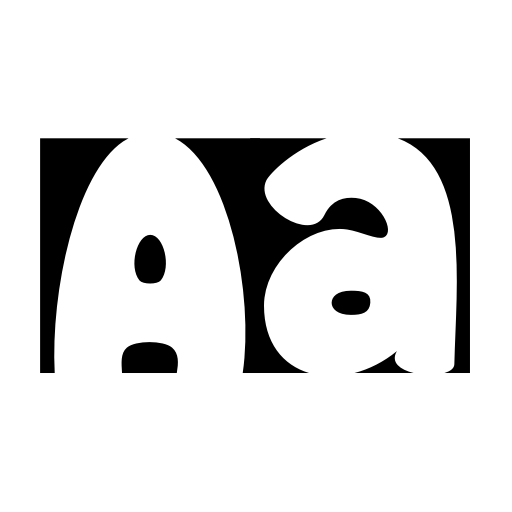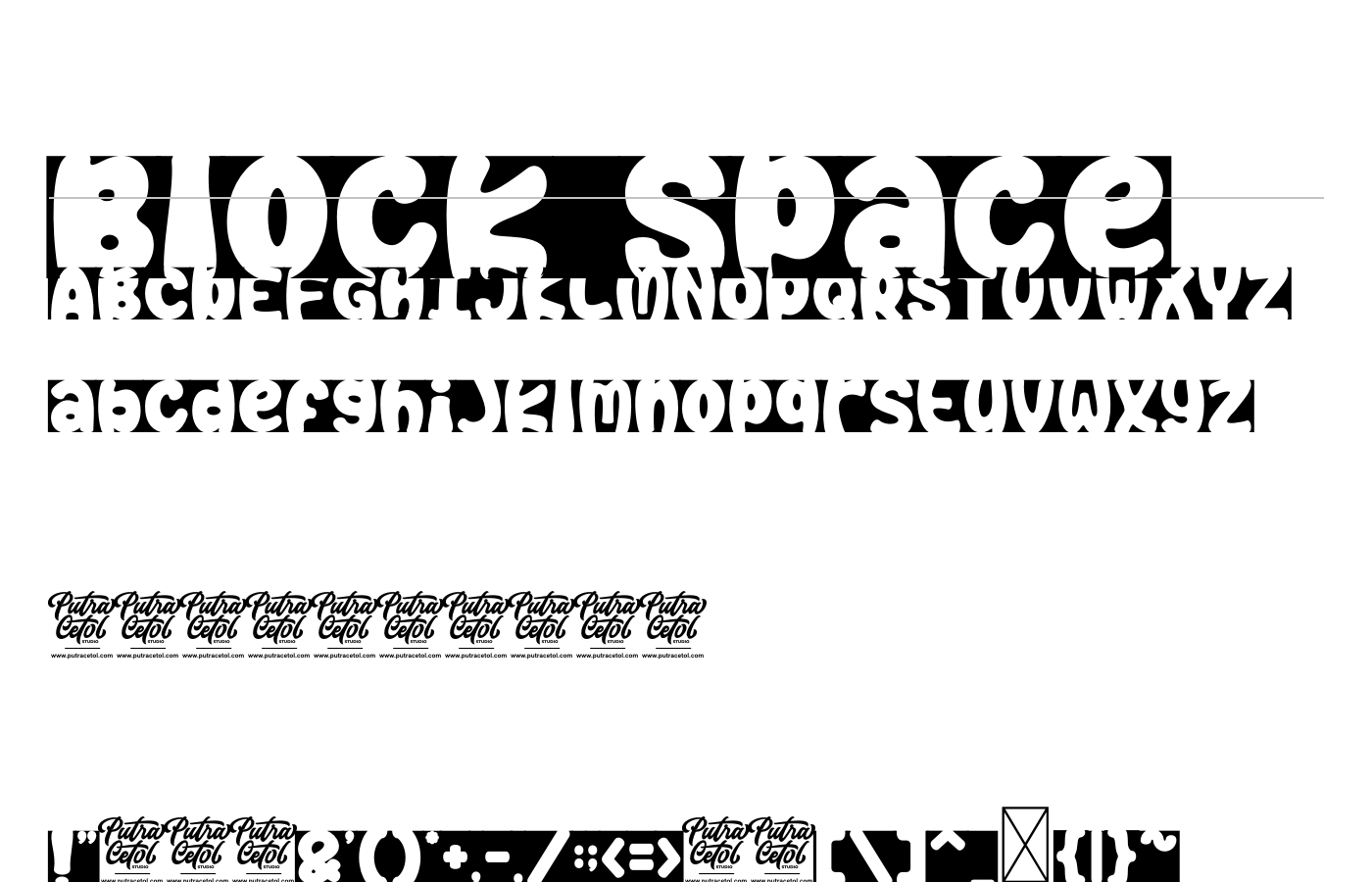
Block Space Font is a bold, playful sans serif with thick, rounded letterforms that create a friendly and eye-catching look. Its wide, chunky shapes and high-contrast cutouts give it a fun, retro vibe, making it ideal for logos, posters, and headlines where a strong, memorable character is needed. This font works best for creative branding and display uses, bringing an energetic and approachable personality to any design.
Block Space Font
About Block Space Font
| Font family | Block Space Font |